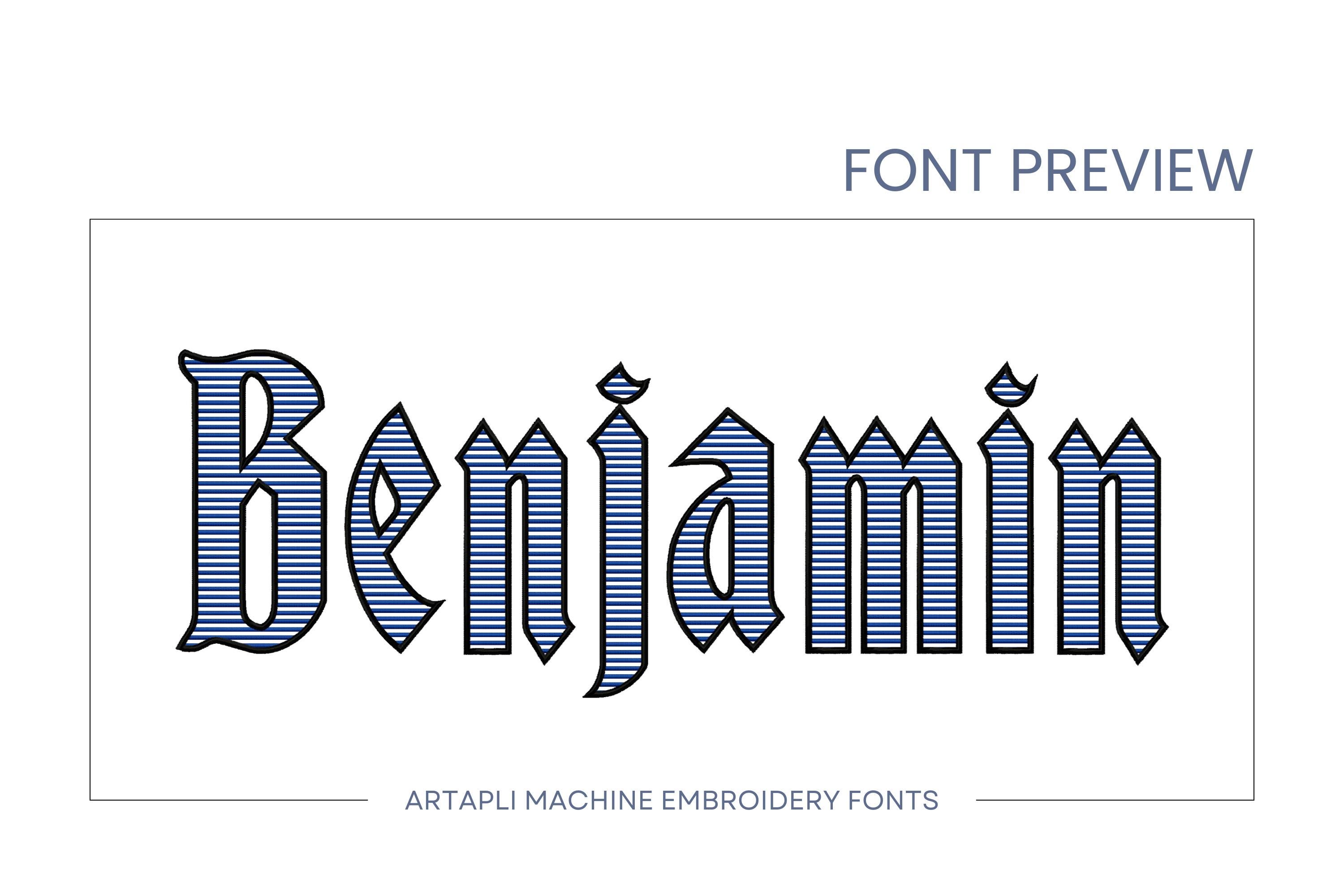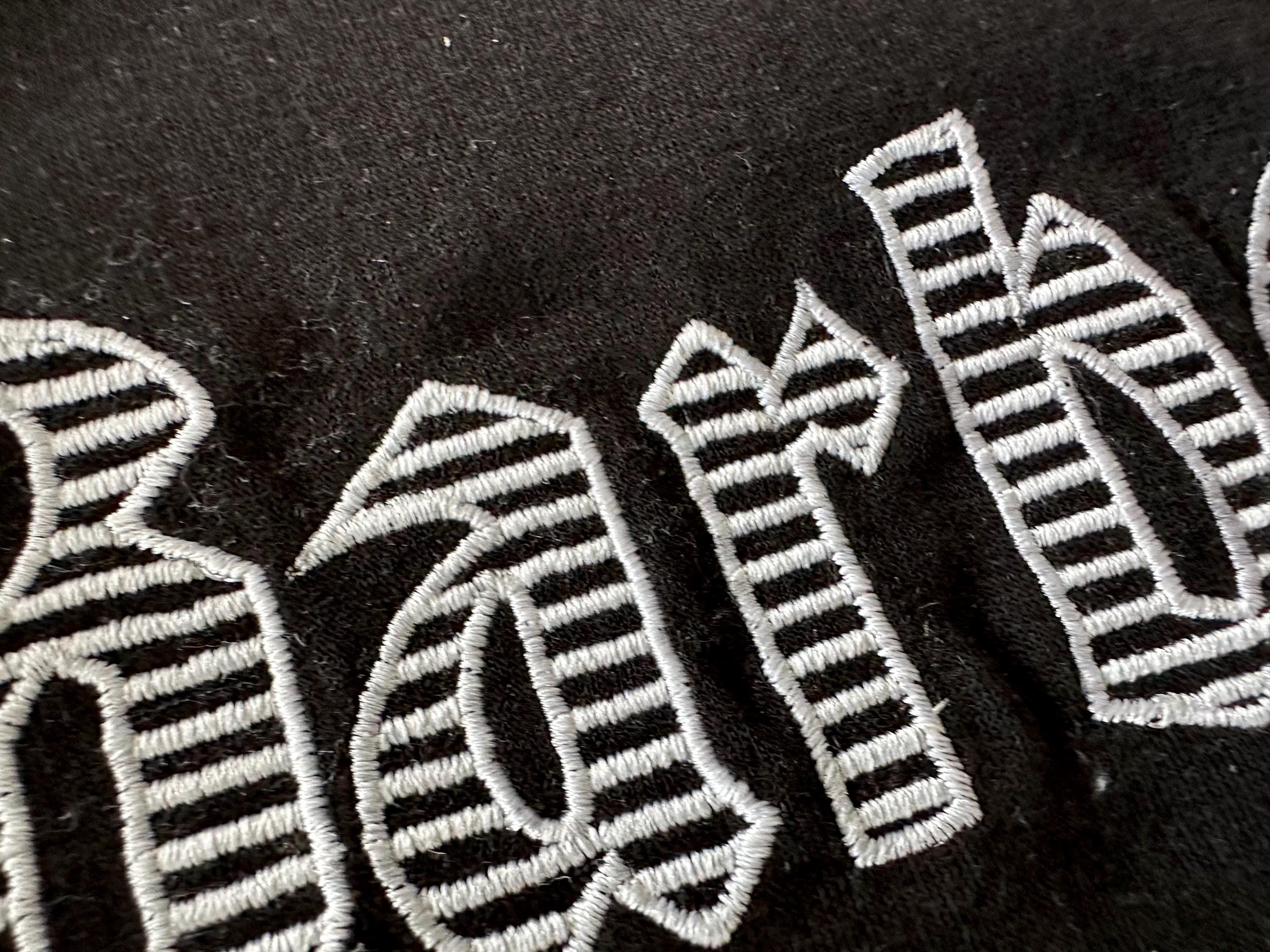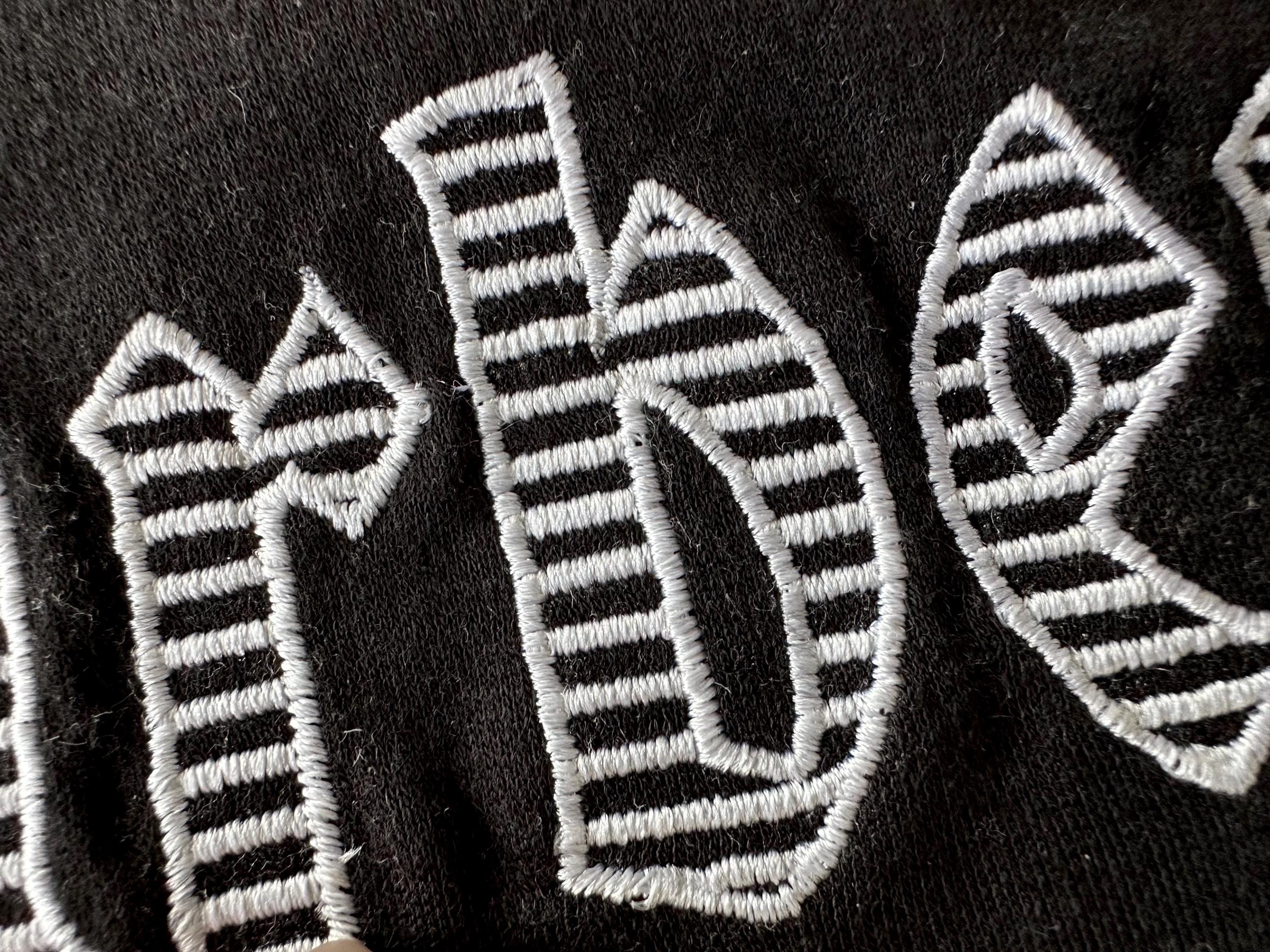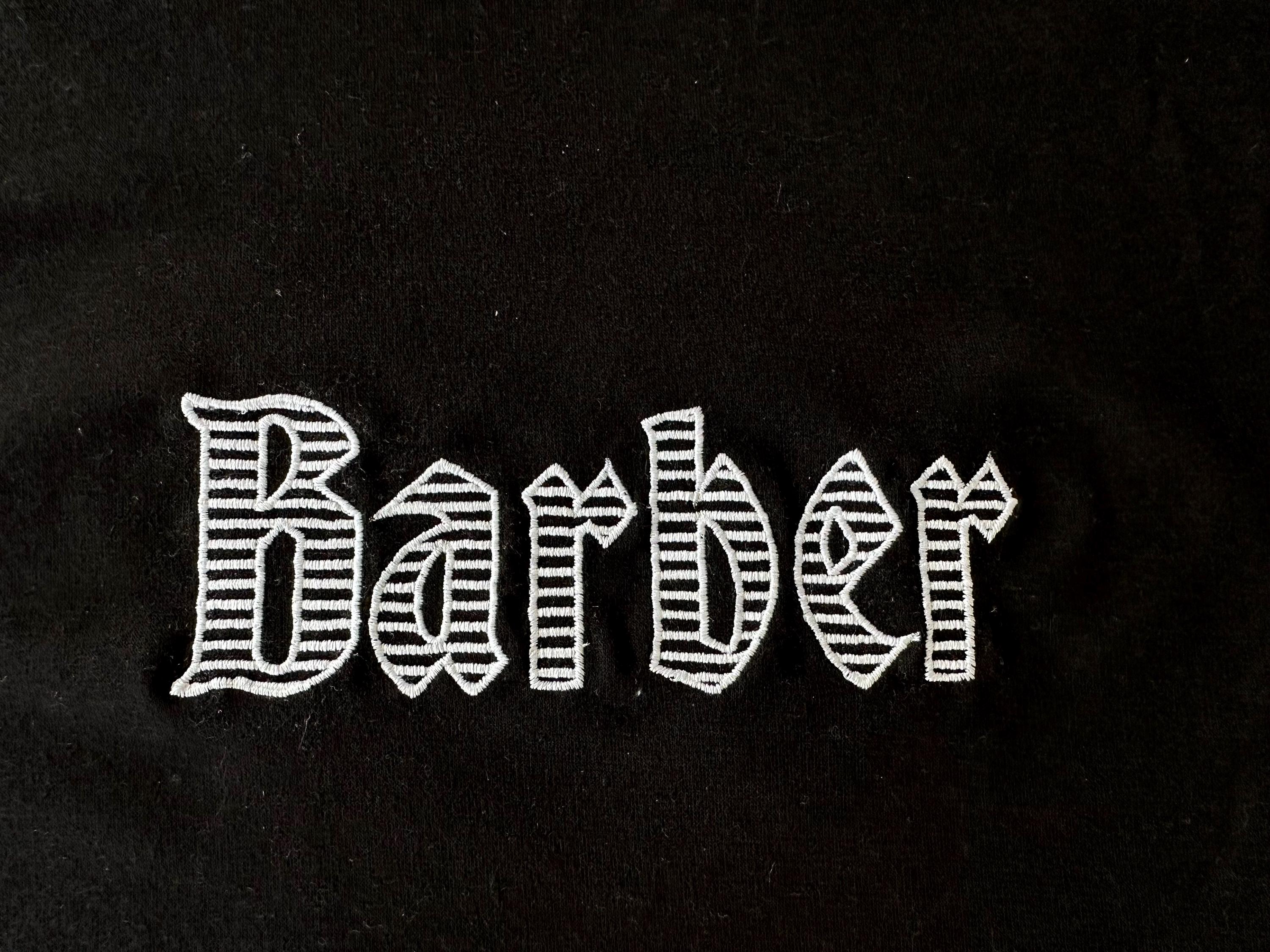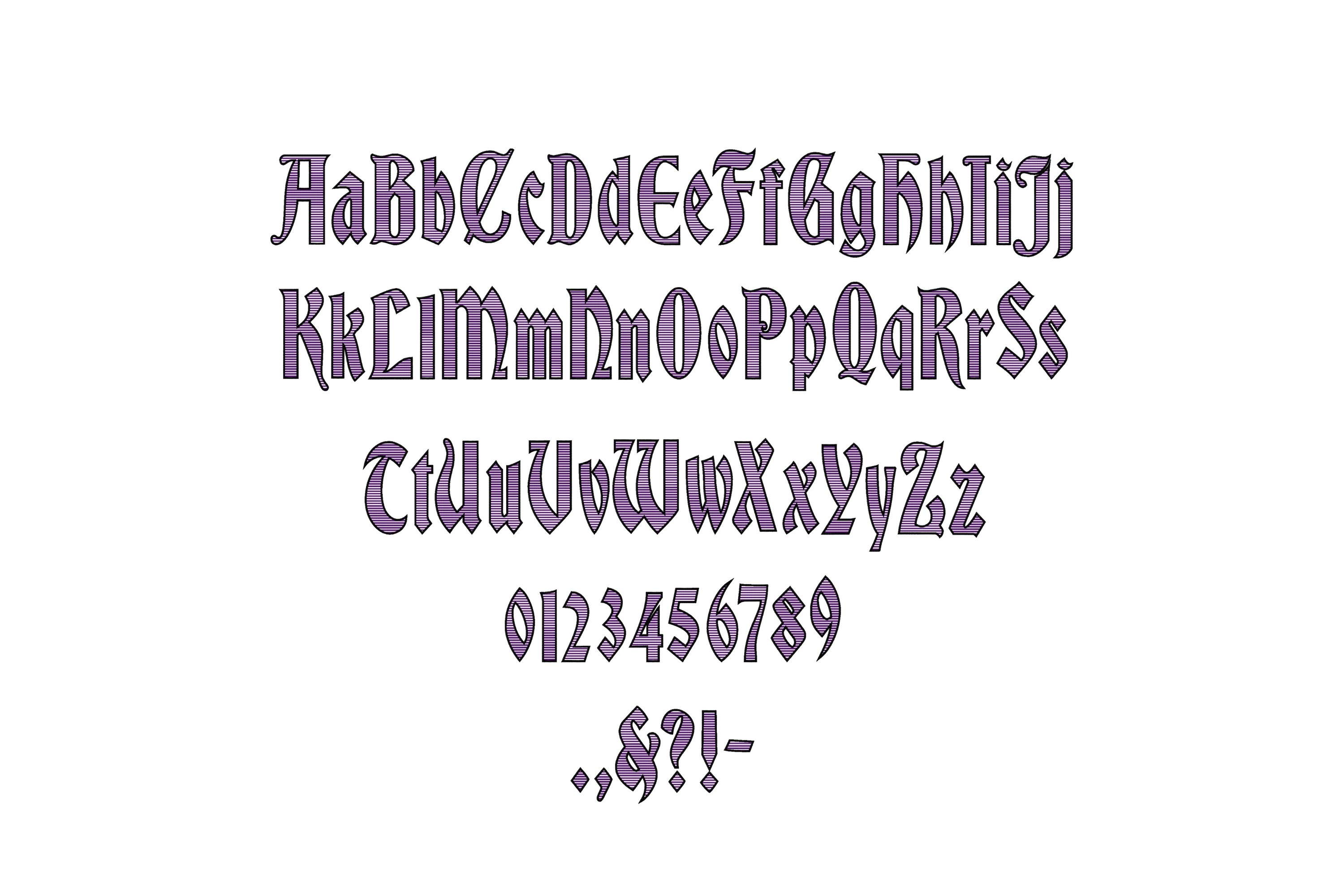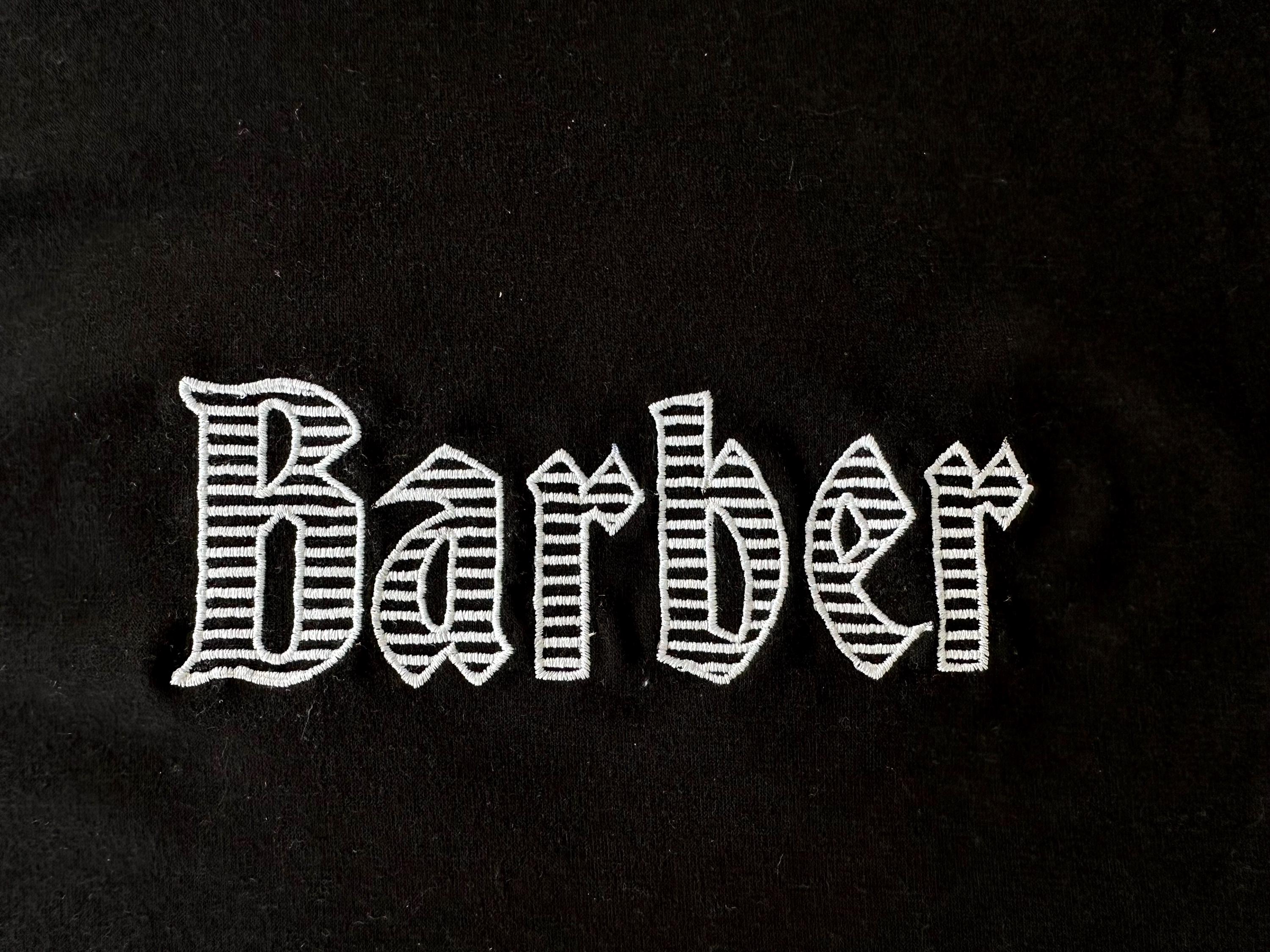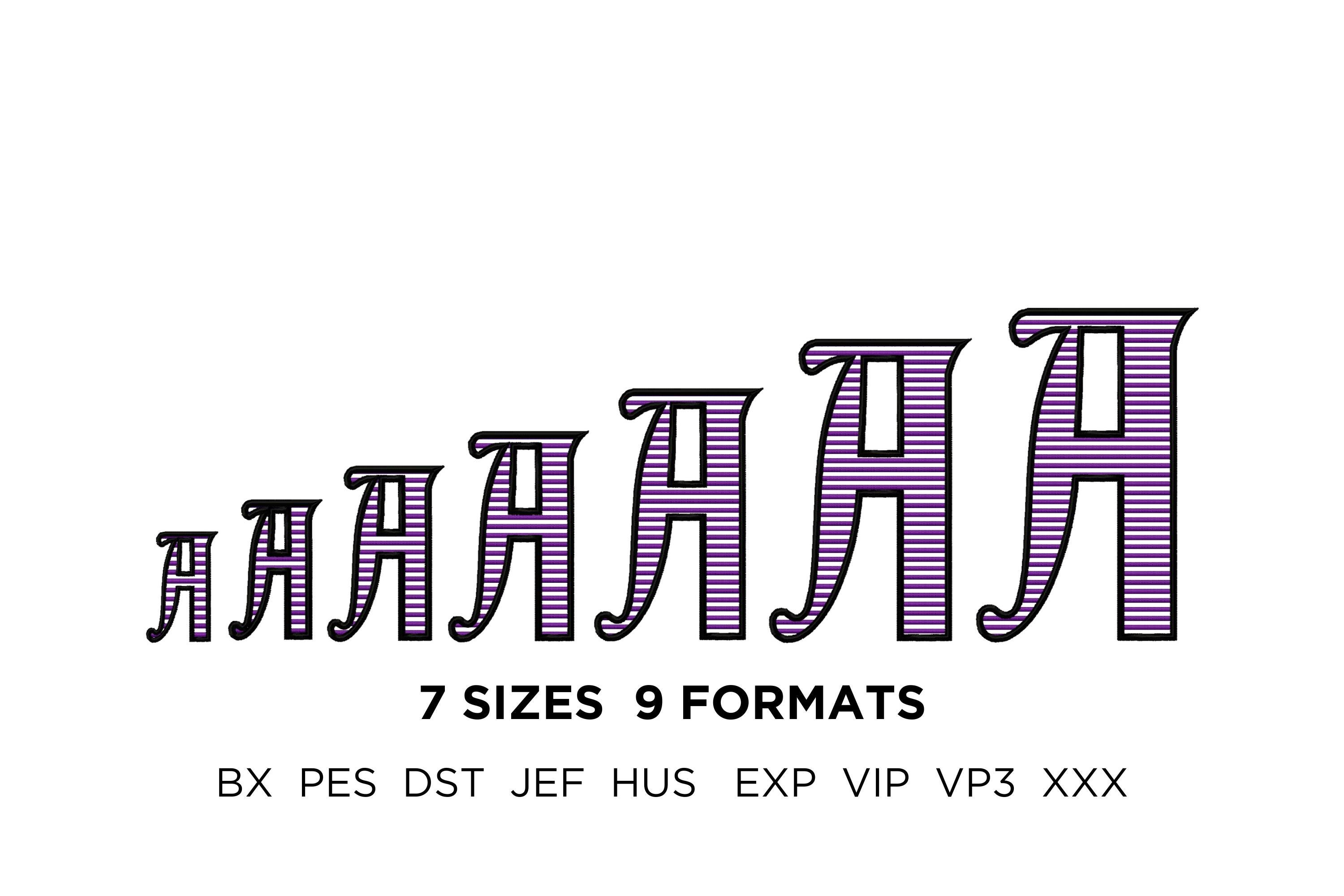
Striped Barber Old fashioned English Font satin stitch Gothic monogram alphabet monogram machine embroidery designs sizes 2 up to 6 inch BX
Entire alphabet: uppercase and lowercase letters Aa-Zz, numbers 0-9, and punctuation.
This is a transparent font and the background fabric looks through. Stunning effect!